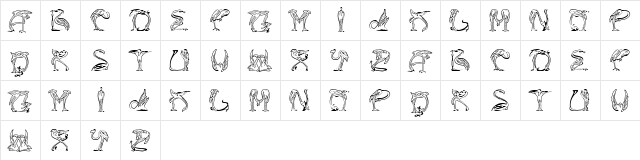
JF Flamingo Regular
Design Context for JF Flamingo Typeface
JF Flamingo is a composed and adaptable typeface that performs quietly and consistently across a wide range of design contexts.